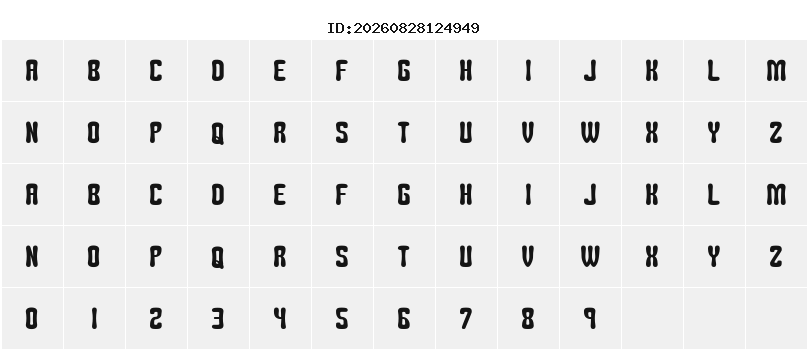
Tomipop__G Preview
About Tomipop__G.ttf
Tomipop__G.ttf is a modern, elegant sans-serif font designed for ultimate readability and visual harmony. Perfect for branding, headlines, web design, and print materials.